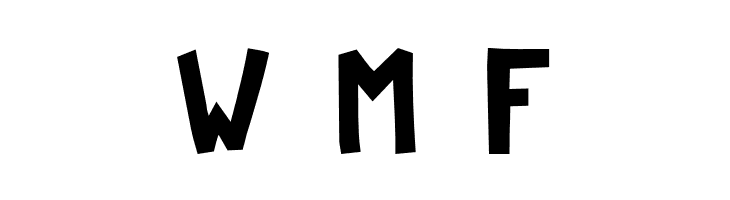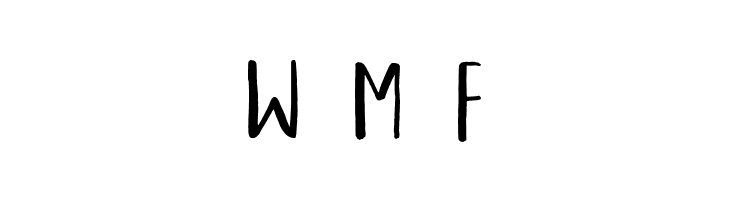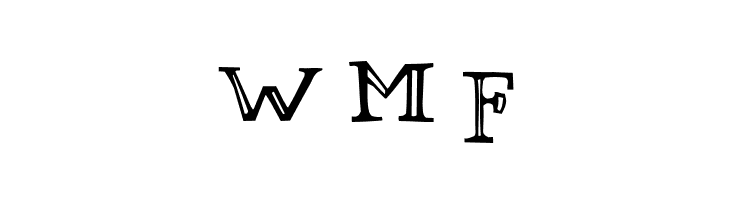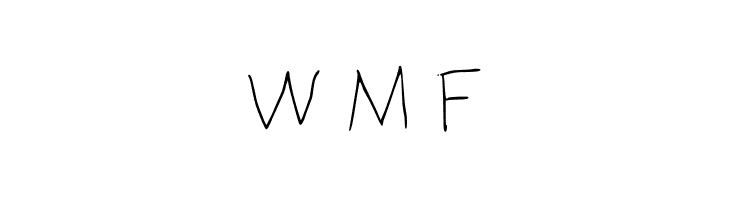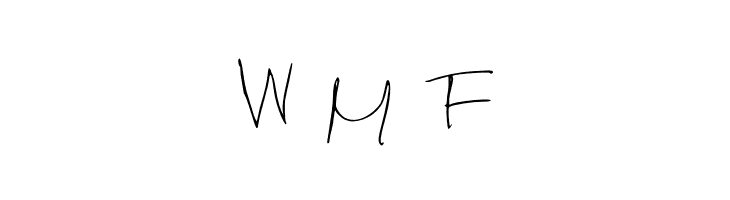
A textured, playful font with an organic, stippled appearance.
A dynamic handwritten font with elongated, expressive characters.
A playful, handwritten font with a casual and friendly appearance.
A playful, hand-drawn font with a whimsical and informal style.
A friendly, hand-drawn style font with rounded edges and consistent weight.
A playful, rounded font with irregular, bold characters.
A playful, rounded font with a hand-drawn, whimsical style.
A playful, handwritten font with a casual and informal style.
A playful, handwritten font with an informal and organic style.
A playful, whimsical font with bold, irregular shapes and a hand-drawn feel.
A jagged, edgy font with sharp, irregular strokes and a distressed appearance.
A playful, hand-drawn font with tall, narrow letterforms and a whimsical style.
A playful, handwritten font with smooth curves and a casual style.
A haunting, organic font with dripping, vine-like letters.
A rough, hand-drawn font with a vintage, distressed look.
A playful, hand-drawn font with tall, narrow characters and whimsical serifs.
A playful, handwritten-style font with a whimsical and casual appearance.
A playful, hand-drawn font with rounded edges and a whimsical style.
A playful, dripping font with a hand-drawn, melting appearance.
A vintage, typewriter-inspired font with a distressed, authentic feel.
A playful, hand-drawn font with a lively, bouncy style.
A bold, graffiti-inspired font with dynamic, irregular strokes and an urban feel.
A whimsical, hand-drawn font with elongated, thin characters and artistic flair.
A hand-drawn, organic font with a natural, flowing style and varying stroke thickness.
A whimsical, decorative font with curly embellishments and a vintage feel.
A bold, punk-inspired font with spiky, irregular edges and high contrast.